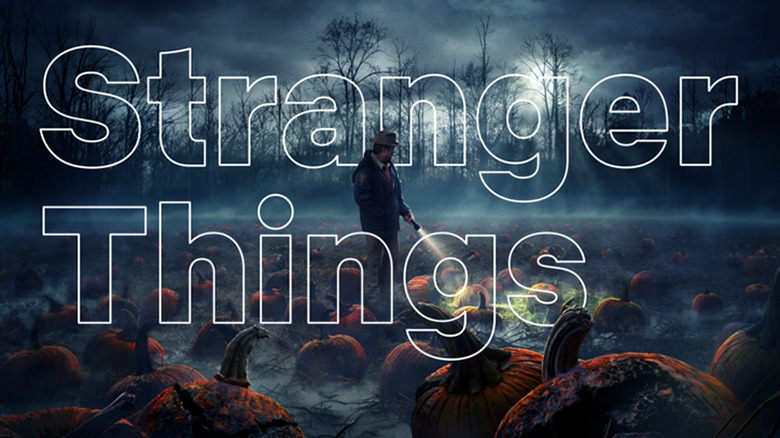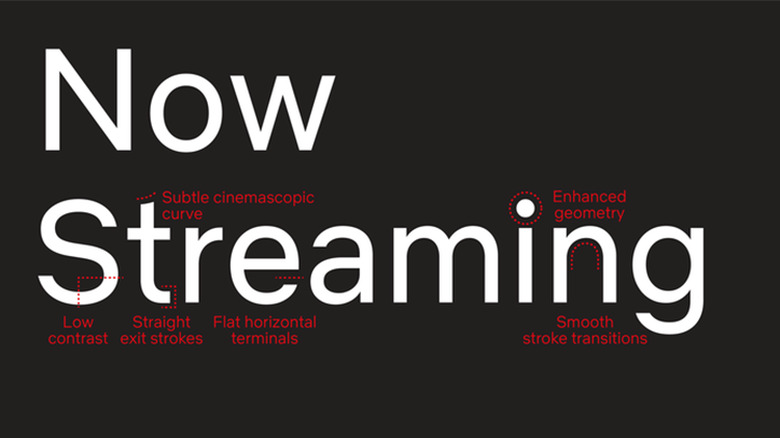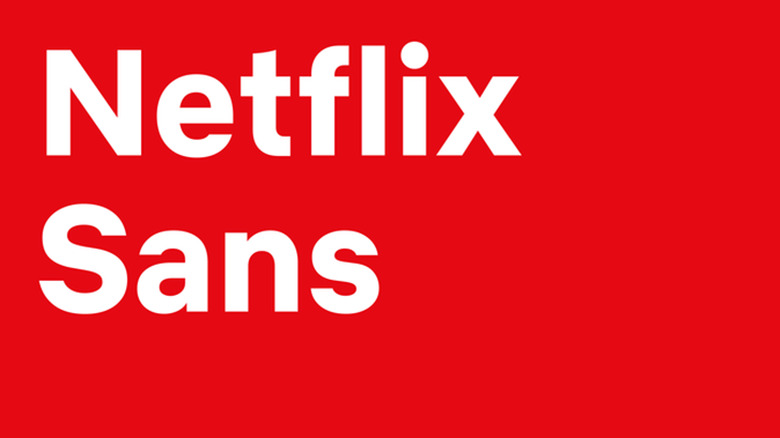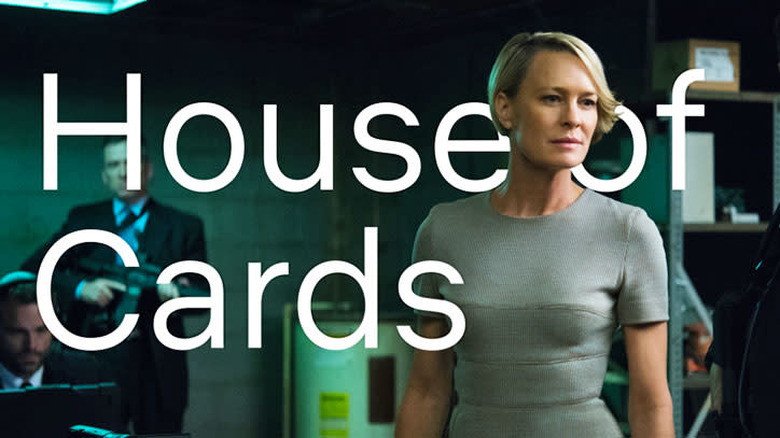
Netflix's latest original: A typeface
The company developed a custom typeface called 'Netflix Sans'.
If you're averse to change, then you might not like Netflix's most recent announcement. According to It's Nice That, the streaming service is changing its typeface from the old reliable Gotham to Netflix Sans. It was developed with typeface designers Dalton Maag.
The reasoning behind the switch is simple. First, typefaces are critical to the way people interact with an online service such as Netflix. This move gives the team more ownership over the entire experience. Second, licensing the Gotham typeface has gotten expensive, according to Netflix brand design lead Noah Nathan. "Developing this typeface not only created an ownable and unique element for the brand's aesthetic . . . but saves the company millions of dollars a year as foundries move towards impression-based licensing for their typefaces in many digital advertising spaces," Nathan said to It's Nice That.
It's not clear when we'll see this typeface roll out across Netflix's services, but eagle-eyed viewers will probably notice the change when it occurs. We've got some images of what the new typeface will look like below.